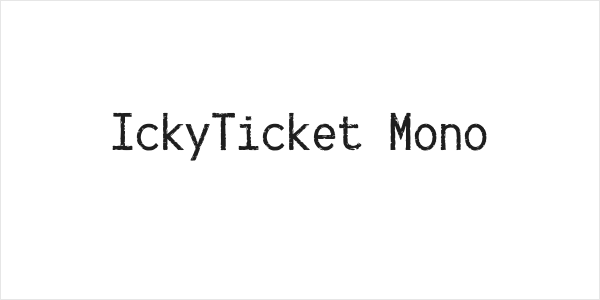
IckyTicket Mono Font
IckyTicket Mono Description
This font features a distressed, grunge-like appearance with a monospaced style. Each character is uniformly spaced, giving it a mechanical and structured feel. The texture of the letters appears worn and rough, as if printed on a ticket or old typewriter, adding a vintage and industrial vibe. The uppercase and lowercase letters maintain a consistent height, enhancing the monospaced effect. The numerals and special characters follow the same design, ensuring uniformity across all glyphs. This font's unique texture makes it stand out, providing a distinct look that can evoke a sense of nostalgia or ruggedness.